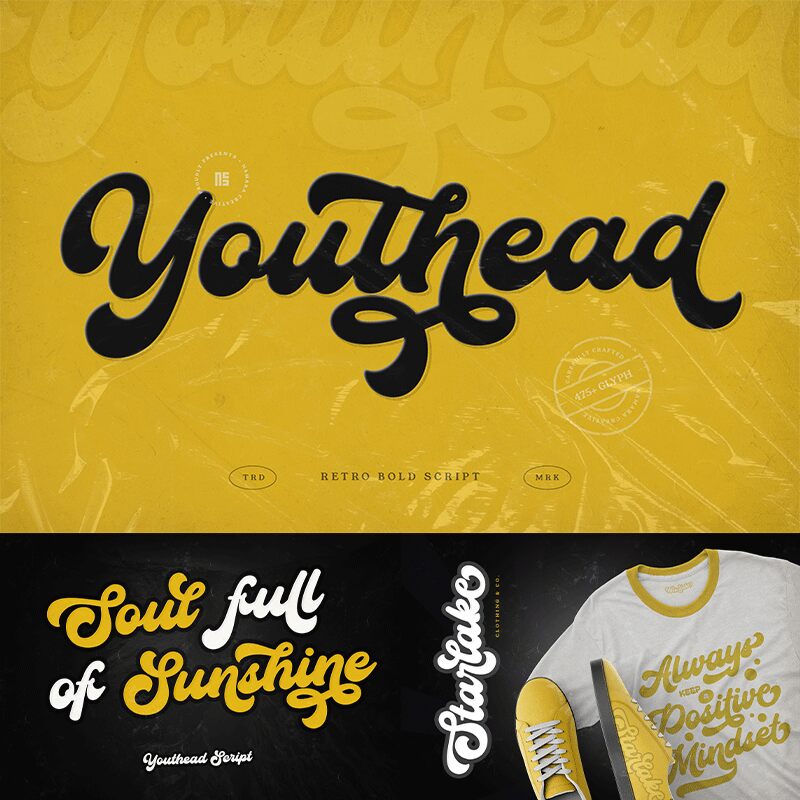
Discover the perfect blend of vintage charm and contemporary elegance with this unique free font. Elevate your project and make it memorable and stylish with the captivating appeal of retro-modern typography.
This font includes a full set of standard characters and punctuation, offering a versatile tool for your design needs. With features such as alternates, ligatures, swashes, and multilingual support, it is designed to meet various creative requirements. The PUA encoding ensures that no special software is needed to access the extra characters, allowing for easy use.